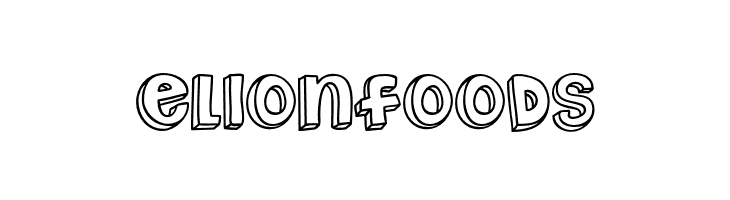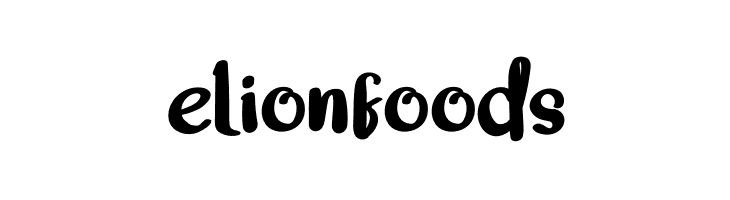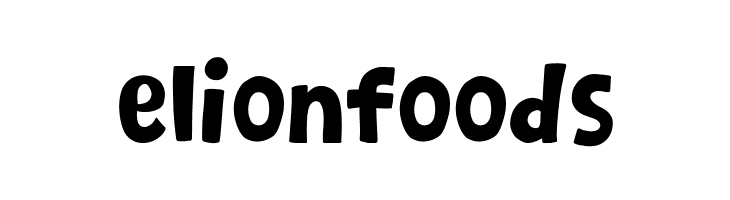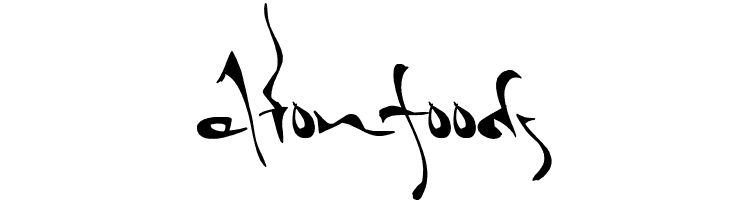
A lively and elegant script font with flowing, continuous strokes.
A playful and elegant script font with a handwritten style.
A bold, flowing script font with elegant curves and dynamic style.
An elegant, flowing script font with modern curves and medium contrast.
A playful, handwritten font with rounded, consistent strokes.
A playful, handwritten font with a dynamic and casual style.
A dynamic, cursive script font with elegant, flowing strokes.
A playful, bold font with a hand-drawn, cartoonish style and thick outlines.
A playful, hand-drawn font with bold outlines and a whimsical style.
An expressive, brush-like font with dynamic strokes and artistic flair.